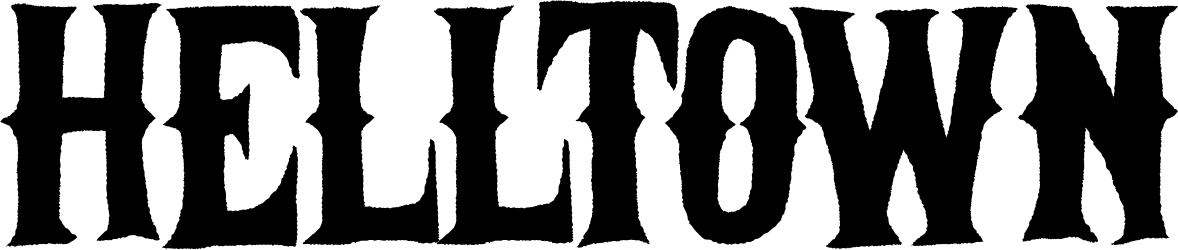
Helltown Font
Want to make sure your text sticks out considerably once you’re done with it? Then a combination of a classic style and a rough pointy structure, or in other words, Helltown ought to do the trick.
This free biker font is all you’re ever going to need to deliver some one-of-a-kind signs, logos, apparel, gaming graphics, or any other design. This American tattoo font might lack the lowercase, but otherwise, it’s all sorts of awesome.
The Helltown Typeface.